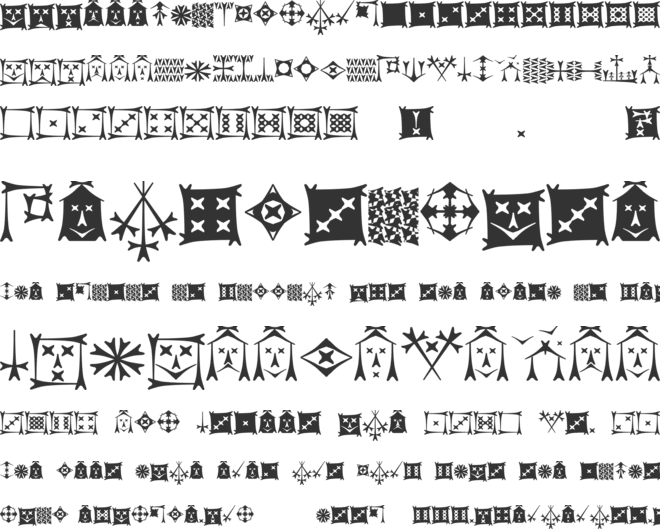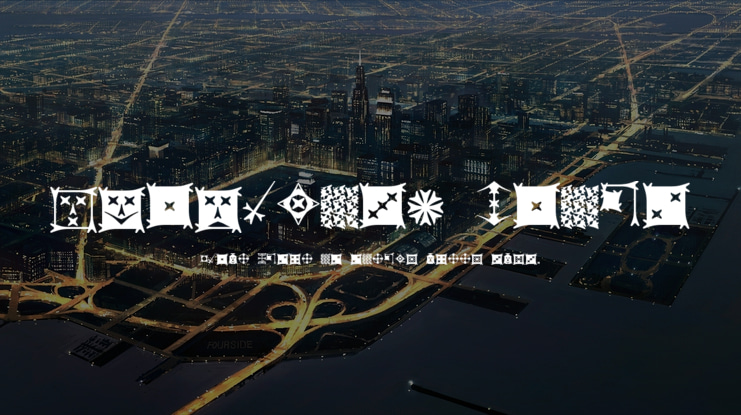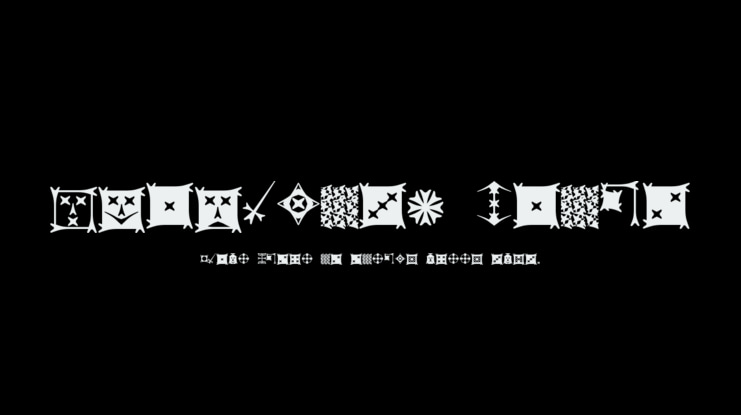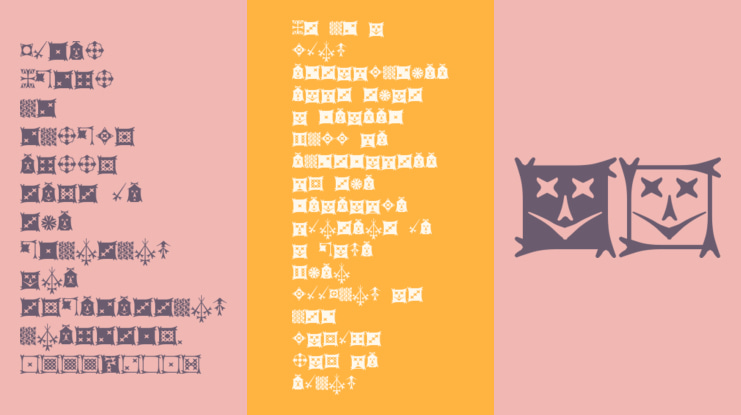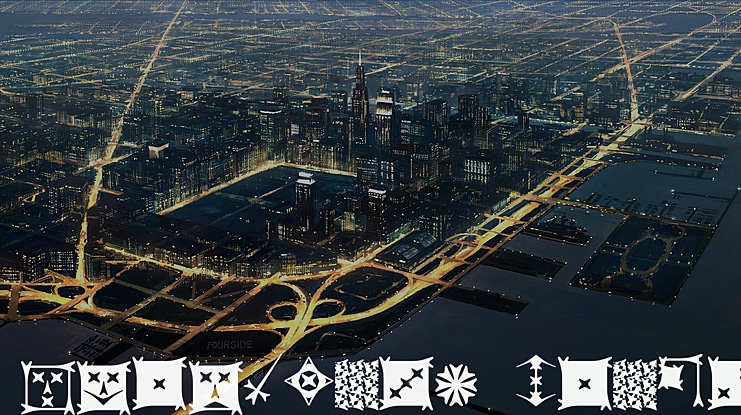
Carbolith Trips Font Family
This is Carbolith, a latin alphabet constructed entirely of old Persian cuneiform symbols.
This font is basically yet another study in how elements of one method of communication can be used to define the theme of another unrelated and independent method. Effexor, which was based on symbols found on ancient shields is another example of such a study. Though between the two I prefer Carbolith, because it flows in a much gentler manner. Human tribes in space, which was the theme I sought with Effexor, is not exactly the friendliest of all. With Carbolith, however, I went after an "island" theme with a bit of humour, and the "fun" aspect of it came out naturally.
With tongue planted firmly in cheek, I advise you to not use this font at less than 36 point size. Usage? I'm not sure. This is one of those fonts where I was the selfish type designer who cared only about what the letters would look like, and their overall effect. Aside from the presentation poster on the web site, I honestly don't know what you would use it for. I think I'm too subjective when it comes to this particular font, so hopefully you'll have more imagination about how it can be used than I currently do.
I like this font, if I may say so myself. Was loads of fun to make. And in the end it was hard to let go of working on it (hard enough that I actually made the other ding-thing included here, just because I was having a blast messing around with cuneiforms).